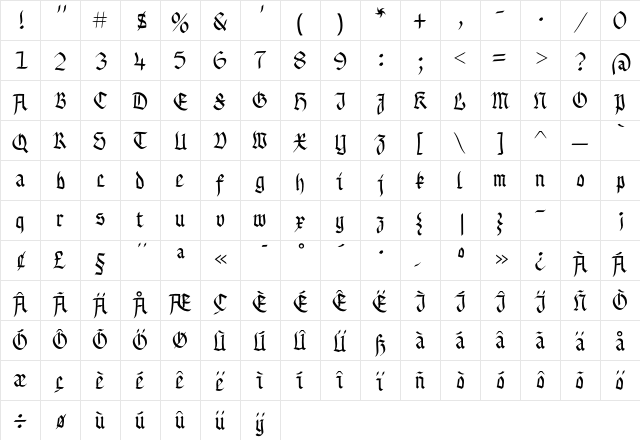
BuchkunstBold is a composed and adaptable typeface that performs quietly and consistently across a wide range of design contexts. Its bold stroke weight gives it real presence on the page.